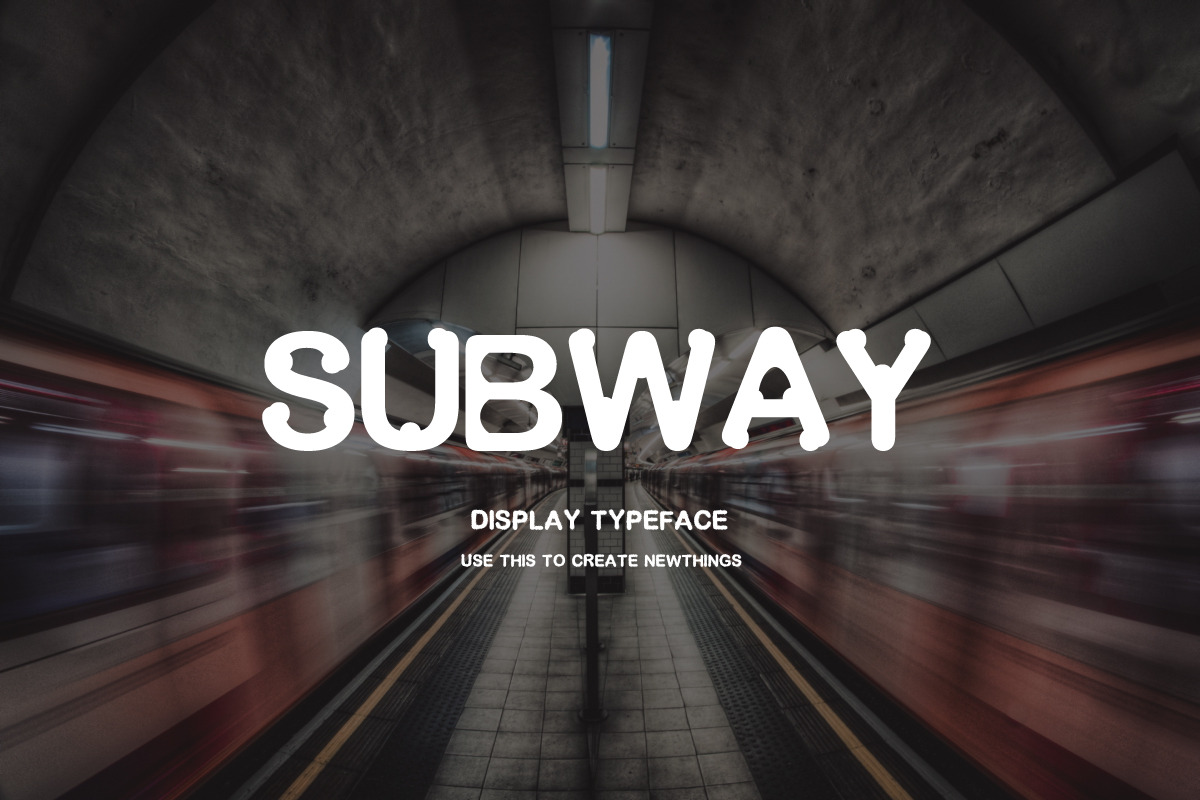
SUBWAY FONT
RISING POP is a Modern retro, bold, & playful display font. This font is Looking Very Great on headlines, Packaging, Mininal Design, Poster, magazines, logos, street vibes,Sportwear,Textile Clothing branding and so much more